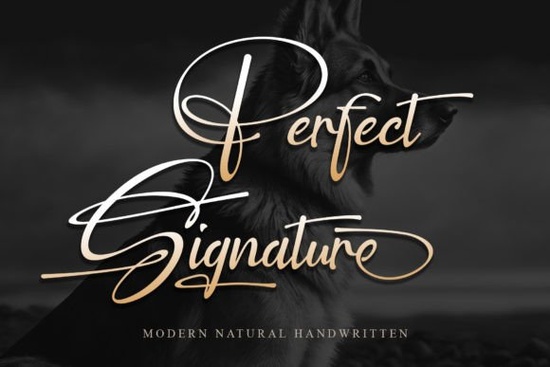
If you're looking for a handwritten font that actually looks like someone signed it by hand, the Perfect Signature Font is worth a close look. It has smooth, connected strokes that give text a warm, personal feel nothing stiff or overly digital. This makes it a strong choice for wedding invitations, brand logos, social media posts, and any project where you want a genuine handwritten style.
Below, I'll cover what this font looks like up close, who it works best for, and how it stacks up against other popular signature-style script fonts.
What Does the Perfect Signature Font Actually Look Like?
The letterforms have a natural flow that mimics how a person would write their name. There's good contrast between thick and thin strokes, which keeps things readable even at smaller sizes. The characters connect smoothly, so words look like one continuous piece of writing rather than individual letters placed next to each other.
You get uppercase and lowercase letters, numbers, and standard punctuation. The overall feel is elegant but approachable it doesn't feel too formal or too casual, which is what makes it so flexible across different project types.
Is This Font a Good Fit for Wedding Invitations?
Wedding stationery needs fonts that feel warm and intimate while still being easy to read. This font handles both well. Here are a few ways you could use it:
- Couple names on invitation headers
- Envelope addressing
- Menu cards and place settings
- Thank-you cards
- Save-the-date designs
Pair it with a simple sans-serif for the details and body text. That combination keeps the focus on the script without making the whole layout feel busy.
Can I Use It for Branding and Logos?
Many small businesses especially in beauty, fashion, food, and lifestyle use signature-style fonts for their logos because they suggest authenticity and a personal touch. A bakery, boutique, or photographer's logo set in this kind of script can look polished without being pretentious.
One thing to keep in mind: legibility matters more in logos than in decorative pieces. Make sure the word you're styling reads clearly at the sizes you'll actually use it on a website header, business card, or Instagram profile photo. If the name is long or has tricky letter combinations, test it at small sizes before committing.
How Does It Compare to Other Script Fonts?
Creative Fabrica has a deep library of script and handwritten fonts, so it helps to compare a few before settling on one. Here are some alternatives worth checking out:
Authentic Society leans more calligraphic, with slightly more dramatic downstrokes. If you want something a bit more ornate than a standard signature style, this elegant script option is a solid pick.
Brittney Signature has a lighter, more feminine feel. It works well for soft, romantic aesthetics think bridal shops, florists, or beauty brands. There's more detail on that font's style and use cases if you're curious.
Asking for a Friend is more casual and playful. It's great for social media quotes, greeting cards, or anything that needs a relaxed, friendly tone rather than formal elegance.
Alexia Bright brings a modern, stylish energy that works particularly well for fashion and beauty branding. If your brand identity is bold and current, it's worth comparing side by side with a similar modern script style.
Perfect Signature sits right in the middle of all these not too formal, not too casual, not too feminine or too bold. That middle ground is what makes it work across so many different projects.
Does It Work for Print-on-Demand Sellers?
If you sell on Etsy, Redbubble, Amazon Merch, or similar platforms, a signature-style font can help your designs stand out from the crowd. Consider it for:
- T-shirt designs quotes, monograms, or custom name graphics
- Mugs and tumblers personalized name designs or short phrases
- Wall art prints typographic pieces with a hand-lettered look
- Tote bags and pillows single-word or short phrase designs
Tips for Working With Script Fonts
- Skip the all-caps. Script fonts are built for mixed case. All caps breaks the connections and looks awkward.
- Add a little breathing room. Slight letter spacing can improve readability at smaller sizes.
- Pair it with something simple. A clean sans-serif or minimal serif keeps the focus on your script font.